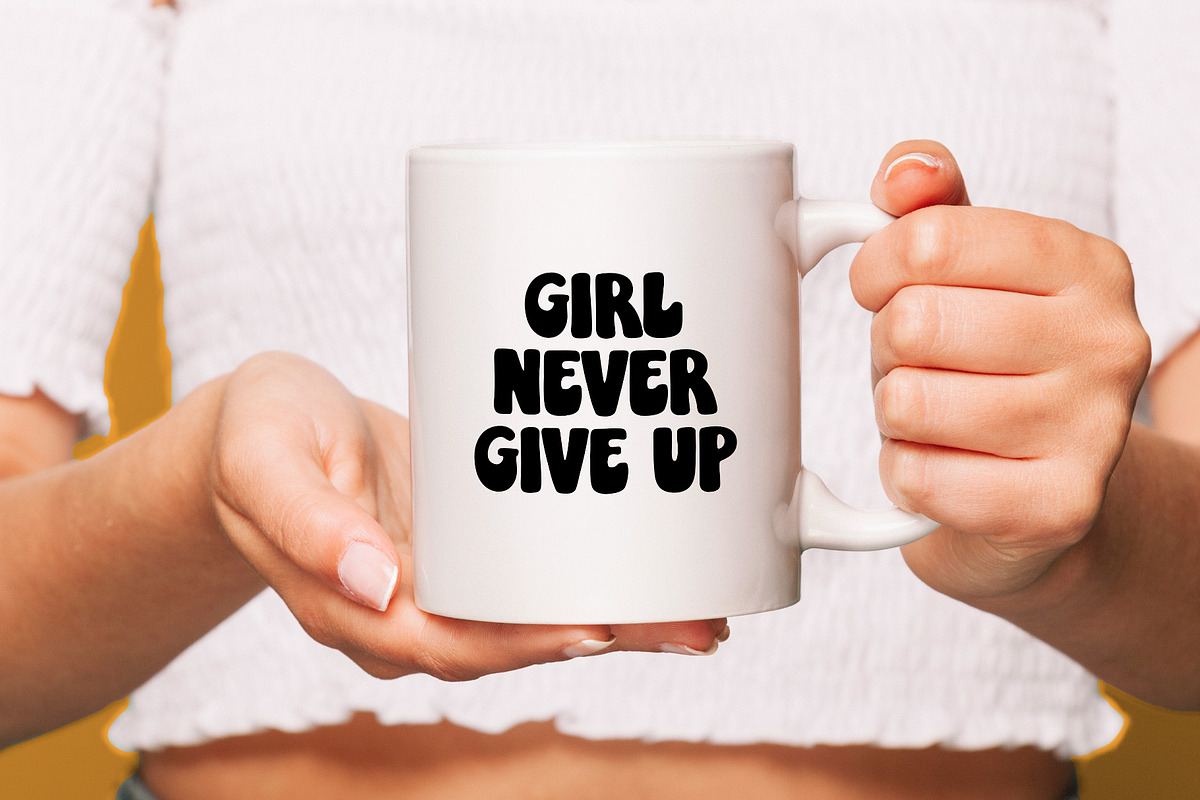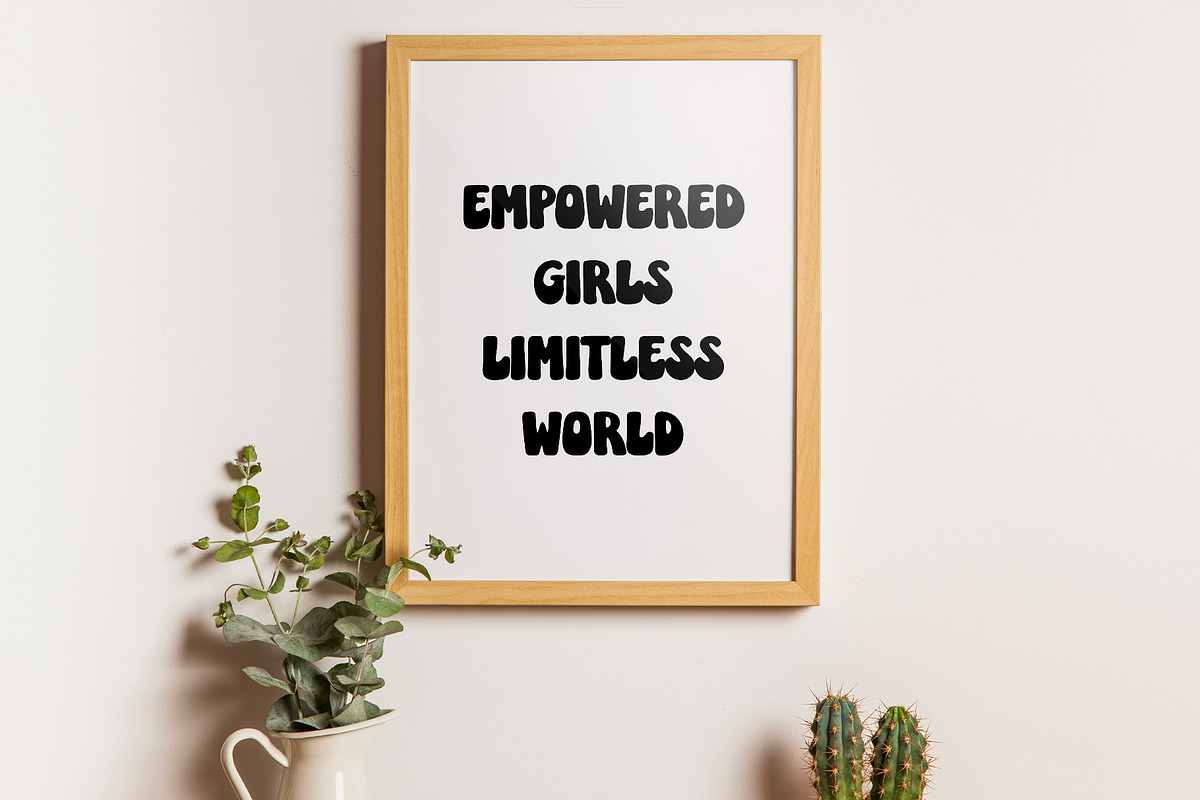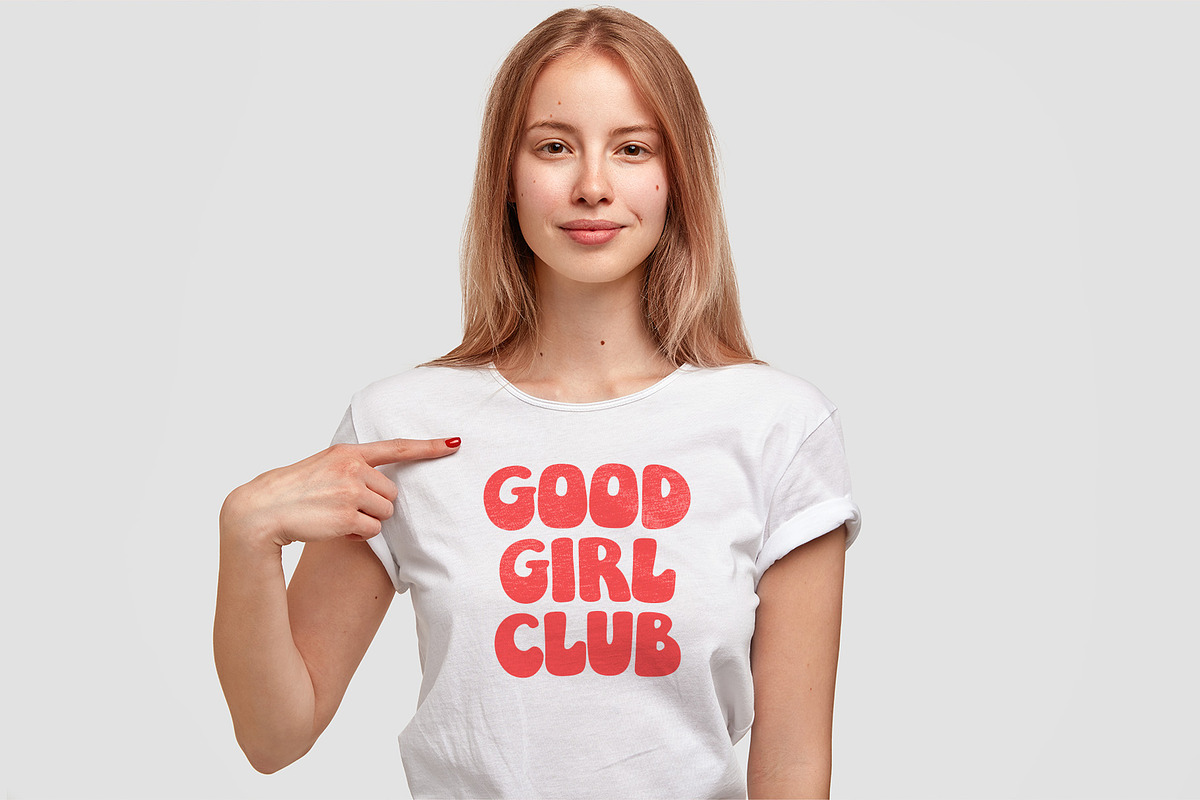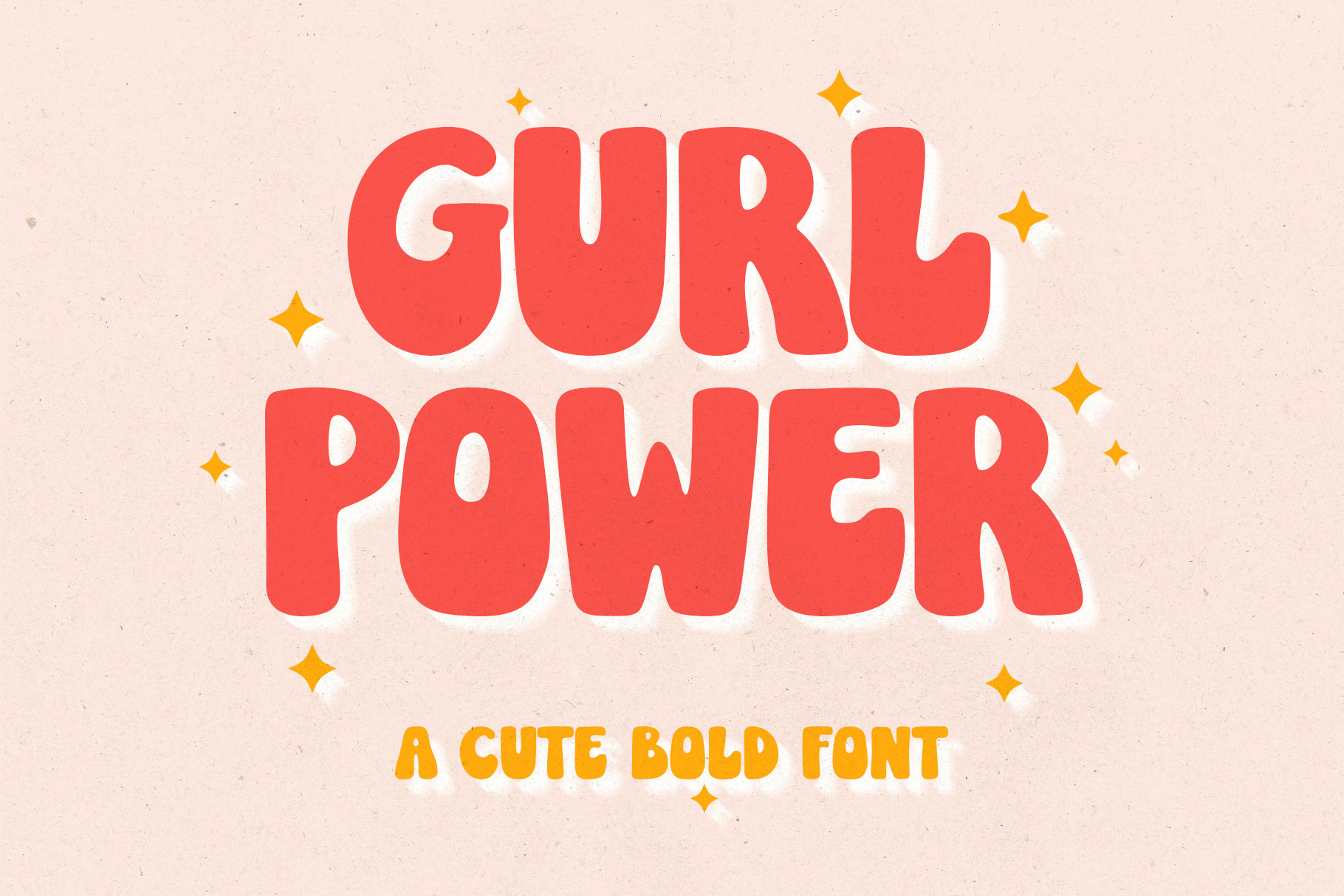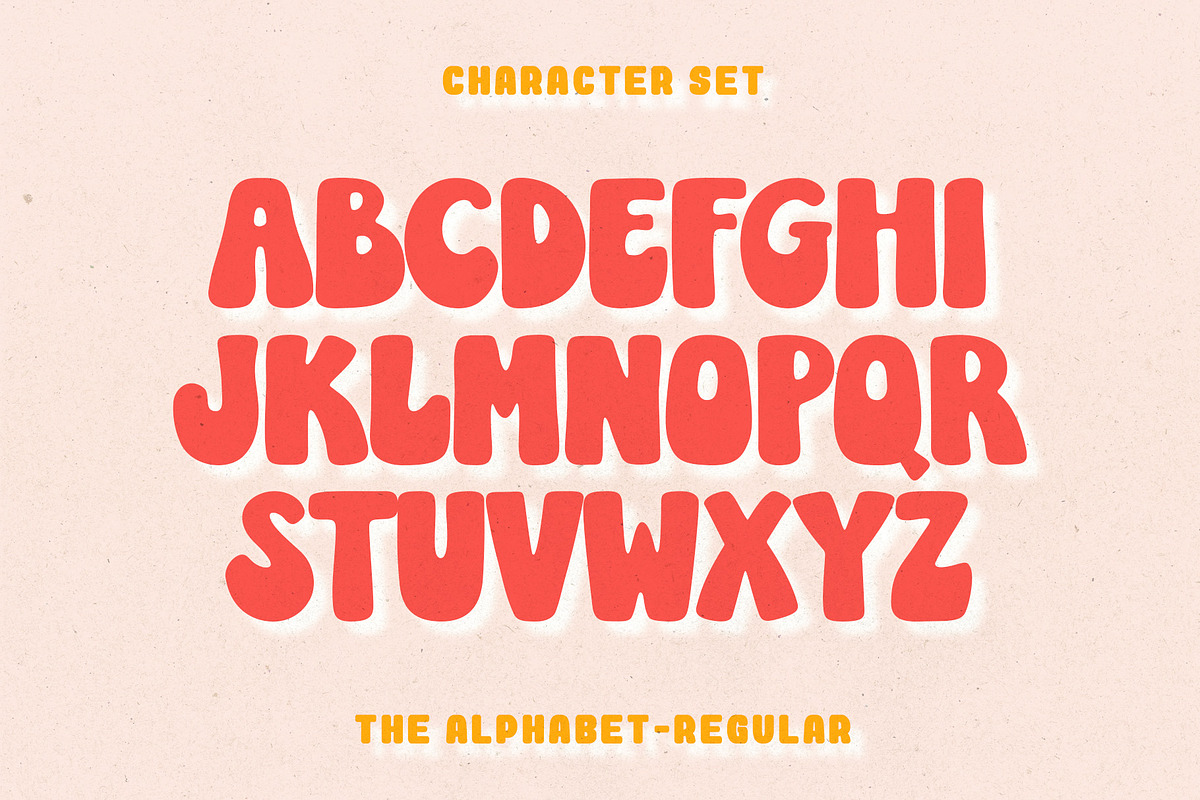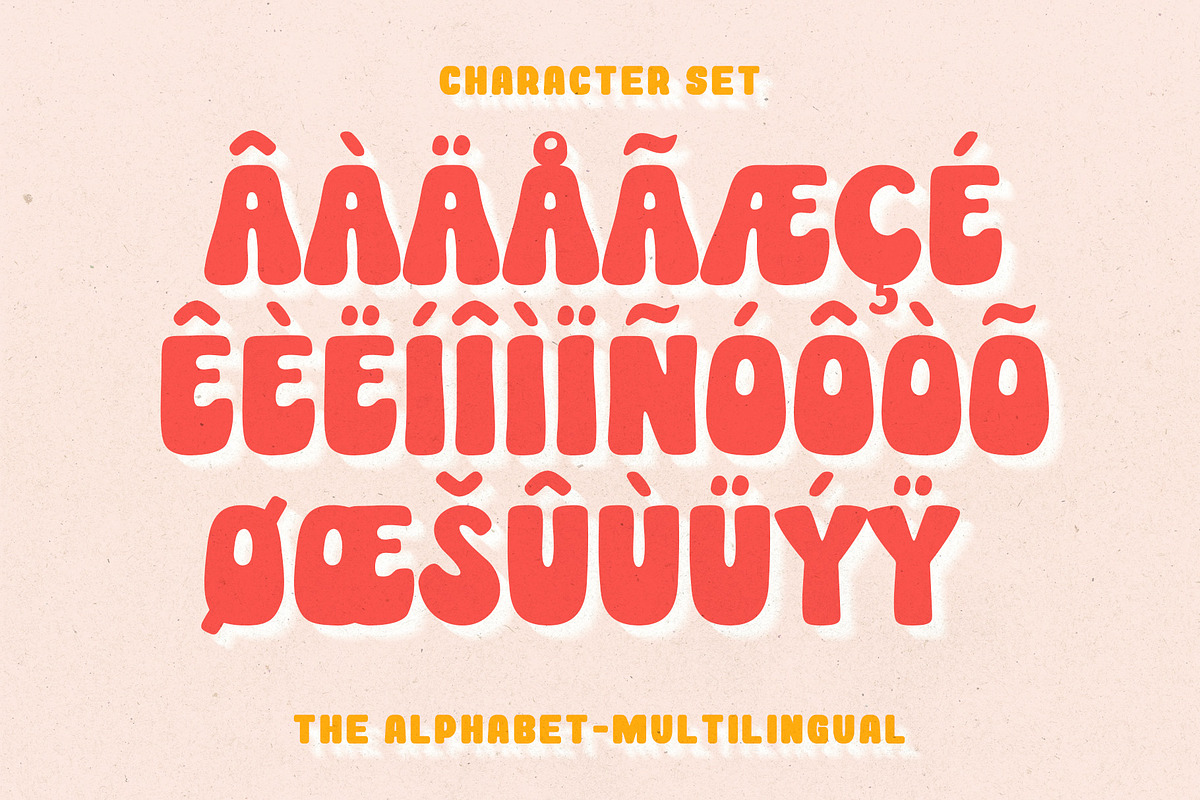
Gurl Power Font - Bold Font
"Gurl Power" is a striking Sans Serif font that exudes confidence with its bold style. This typeface available in SVG format, compatible with advanced tools such as Cricut and Glowforge, and for use in Procreate. The clean lines and lack of decorative flourishes give it a sleek and contemporary appearance, making it perfect for a wide range of applications. Its bold weight ensures readability and impact, making it an ideal choice for those who want to convey a strong and assertive message in their typography.